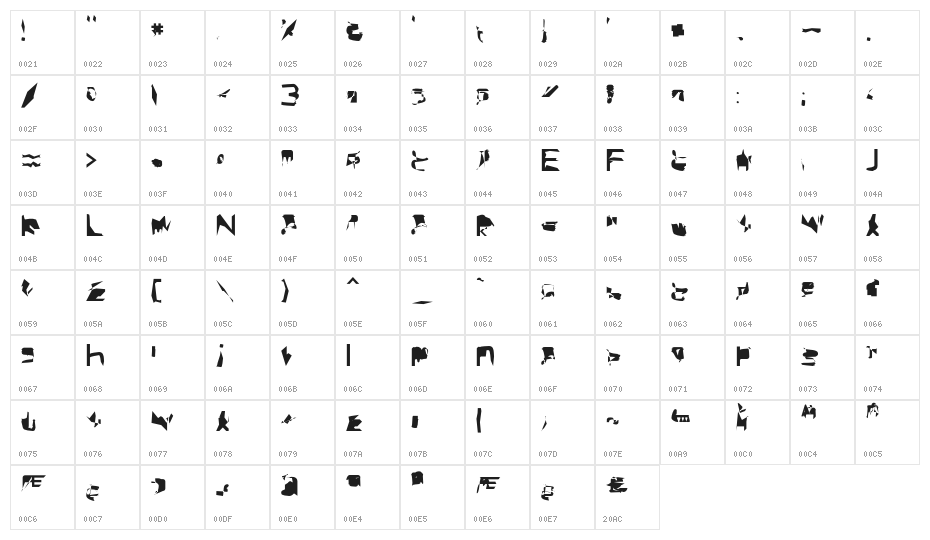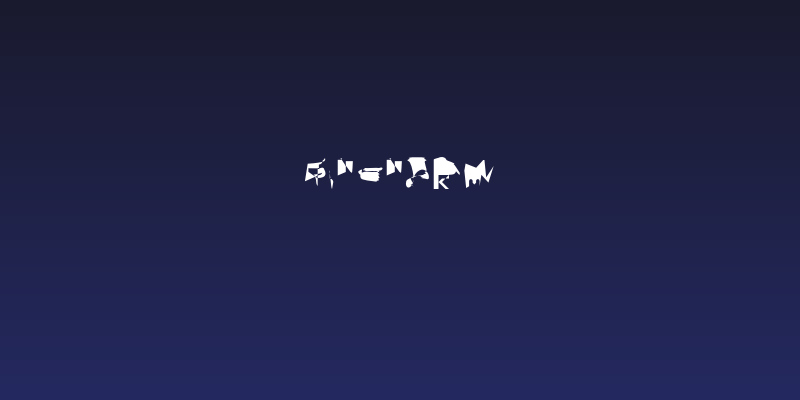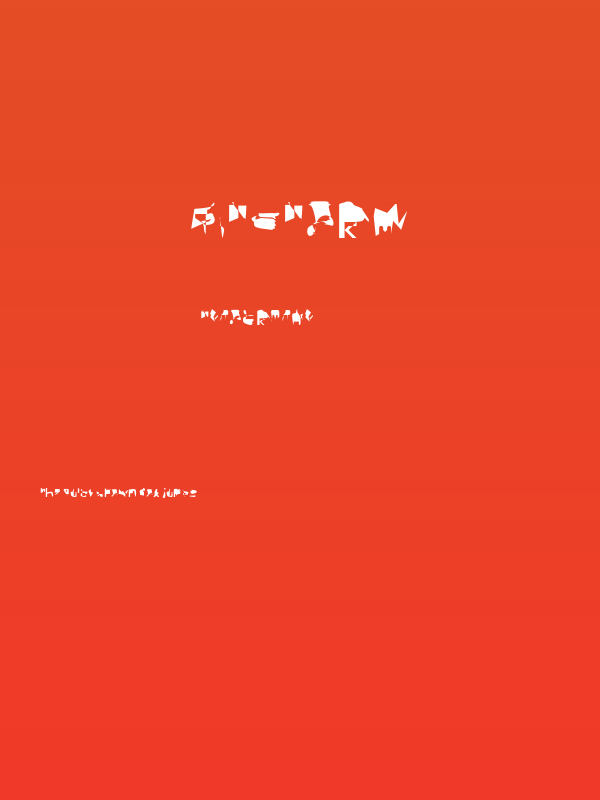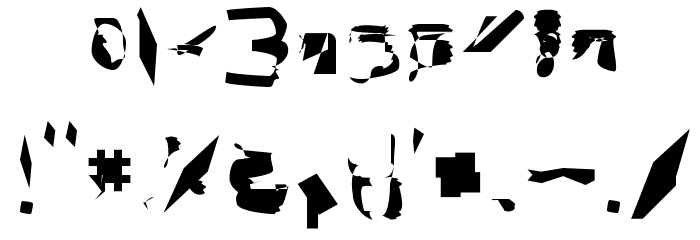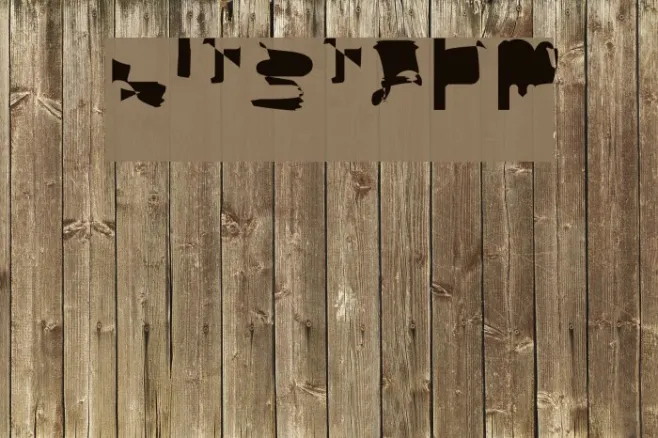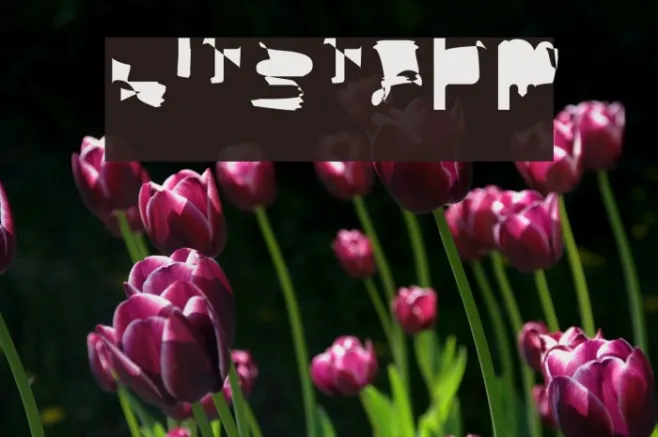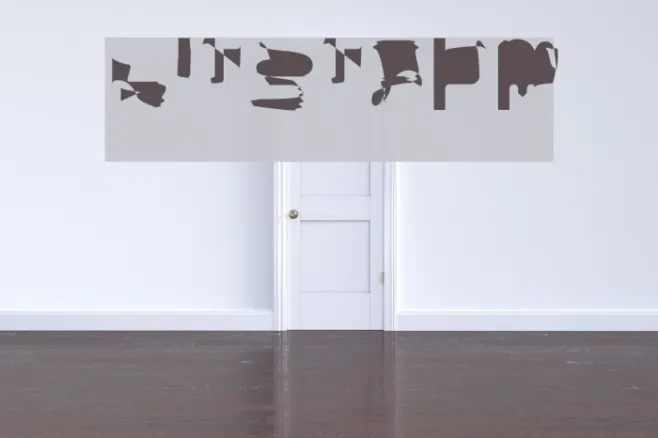
bitstorm Font
bitstorm Description
This font features a highly abstract and fragmented design, with characters that appear as if they have been shattered or distorted. Each letter and symbol is composed of sharp, angular shapes, creating a chaotic yet intriguing visual effect. The irregularity in the design gives it a dynamic and edgy appearance, making it stand out as a unique choice for creative projects. The font's style is reminiscent of a digital glitch or a deconstructed aesthetic, which can evoke a sense of modernity and innovation. The characters are bold and striking, with varying levels of opacity and thickness, adding to the overall complexity and depth of the design.
| Proposed Projects | Ideal for digital art, album covers, posters, and experimental design projects. |